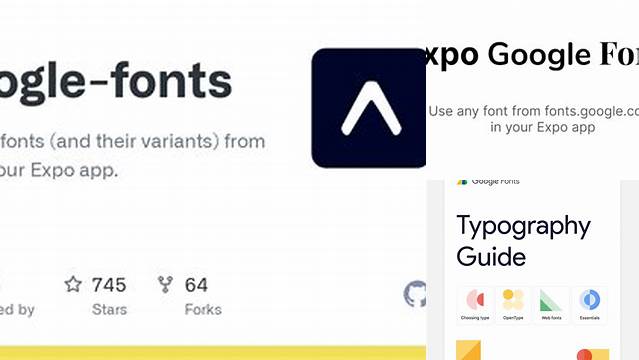
Expo Google Fonts: Your Guide To Typography
Unlocking the Power of Typography with Expo Google Fonts
Hey, design wizards and app builders! Ever felt like your mobile app's text is just… meh? Like it's screaming for a personality upgrade but you're not sure where to start? Well, let me tell you, the secret sauce often lies in typography. And when it comes to jazzing up your Expo projects with gorgeous, readable, and diverse fonts, Expo Google Fonts is your new best friend. We're talking about tapping into the massive library of Google Fonts directly within your Expo application, making your UI pop and your users smile. It’s not just about making things look pretty, guys; it’s about enhancing user experience, improving readability, and establishing a strong brand identity. Imagine downloading a font and having it seamlessly integrated into your project with just a few lines of code. That’s the magic we’re diving into today. Forget complicated font management or worrying about licensing issues; Expo and Google Fonts have teamed up to make this process incredibly smooth. We'll explore how to leverage this integration to its fullest, turning your app's text from a mere carrier of information into an expressive element of your design.
The Benefits of Using Google Fonts in Expo Apps
Let's talk why you should be super stoked about using Google Fonts in your Expo apps, guys. It’s more than just a visual upgrade; it’s a strategic move that impacts your app in several significant ways. First off, access to an enormous library. Google Fonts boasts thousands of free, high-quality, open-source fonts. This means you have an unparalleled selection to match your brand's personality, convey a specific mood, or simply ensure maximum readability. Whether you're going for a playful, minimalist, or professional vibe, there's a font out there for you. Secondly, improved user experience and accessibility. The right font can make your app a joy to use. Good typography ensures that text is clear and easy to read, reducing user fatigue and making information digestible. This is crucial for engagement and retention. Plus, many Google Fonts are designed with accessibility in mind, offering clear letterforms and good spacing that benefit users with visual impairments. Consistency across platforms is another huge win. By loading fonts directly into your Expo app, you ensure that your app looks identical on both iOS and Android devices, and even on the web if you're using Expo for web. No more worrying about platform-specific font rendering or availability. And let's not forget cost-effectiveness and licensing. Google Fonts are free to use, even for commercial projects. This is a massive advantage, especially for indie developers or startups, as it eliminates the need for expensive font licenses. You get professional-grade typography without breaking the bank. Finally, brand identity and memorability. Fonts play a massive role in how your brand is perceived. Using distinctive, well-chosen fonts helps create a unique and memorable brand identity for your app, making it stand out in a crowded marketplace. So, yeah, the benefits are pretty compelling, right?
Integrating Specific Font Families: A Practical Guide
Now that we’re all hyped about the possibilities, let’s get practical with integrating specific font families using Expo Google Fonts. It’s all about picking the right font and then telling Expo how to load it. Let's say you've fallen in love with 'Roboto' – a super versatile and widely loved font. You’ll need to head over to Google Fonts (fonts.google.com) and find 'Roboto'. On the font's page, you'll see various styles and weights (Regular, Medium, Bold, Italic, etc.). You need to select the ones you want to use. For instance, let's say you want 'Roboto Regular' and 'Roboto Medium'. You'll then click the 'Get font' button and select 'Download family' or individual styles. For integration, it’s usually best to download the specific weights you need. Once downloaded, you'll typically find .ttf or .woff files. You'll need to place these font files into your Expo project directory. A common practice is to create a assets/fonts folder and put them there. So, if you downloaded Roboto-Regular.ttf and Roboto-Medium.ttf, they’d live in your-project/assets/fonts/. Now, back in your code, you'll use expo-font's loadAsync function. You can import it like import * as Font from 'expo-font'; and then in your App.js or a relevant component's useEffect hook: const loadFonts = async () => { await Font.loadAsync({ 'Roboto': require('./assets/fonts/Roboto-Regular.ttf'), 'Roboto_medium': require('./assets/fonts/Roboto-Medium.ttf'), }); }; loadFonts();. Notice how we used require() for local files. This tells Expo to bundle these fonts with your app. The first argument in the object ('Roboto', 'Roboto_medium') is the name you'll use in your stylesheets, like fontFamily: 'Roboto'. The second argument is the path to the font file. If you need multiple weights for the same font family (like 'Roboto'), it's common practice to name them clearly, perhaps 'Roboto-Regular' and 'Roboto-Medium', or even just 'Roboto' for the regular weight and use platform-specific naming conventions if needed, though explicitly naming is often clearer. This method works seamlessly for any font you choose from Google Fonts, giving you full control over your app's typographic aesthetic.
Handling Different Font Weights and Styles
Guys, let's talk about making your text really sing by mastering different font weights and styles with Expo Google Fonts. It’s not just about picking a font; it’s about using its full potential to create hierarchy, emphasis, and visual appeal. Think about it: bold text grabs attention, italic text adds emphasis or a subtle stylistic flair, and different weights (like light, regular, medium, bold, black) allow you to create a clear visual structure within your app's content. Expo's expo-font library is designed to handle this beautifully. When you download fonts from Google Fonts, they usually come in various weights and styles. For example, you might download 'Lato' in 'Lato-Regular', 'Lato-Bold', and 'Lato-Italic'. To use these in your Expo app, you load each one individually using Font.loadAsync. You can give each loaded font a distinct name that reflects its weight and style, making it super easy to reference later. So, in your loadAsync call, it might look like this: Font.loadAsync({ 'Lato-Regular': require('./assets/fonts/Lato-Regular.ttf'), 'Lato-Bold': require('./assets/fonts/Lato-Bold.ttf'), 'Lato-Italic': require('./assets/fonts/Lato-Italic.ttf'), });. Now, in your React Native components, you can apply these specific styles directly: <Text style={{ fontFamily: 'Lato-Bold', fontSize: 20 }}>This is important!</Text> or <Text style={{ fontFamily: 'Lato-Italic', fontSize: 16 }}>A little emphasis here.</Text>. If you want to use a font family name consistently and let the system handle weights (which is less common and sometimes less reliable in React Native compared to web), you could load the regular weight as 'MyFont' and then try to apply fontWeight: 'bold' or fontStyle: 'italic' to your Text components. However, for maximum control and predictable results across devices, loading each weight/style combination with a distinct name, as shown above, is the recommended approach. This allows you to precisely control the appearance of every piece of text, ensuring your design is implemented exactly as intended and providing a professional, polished look to your Expo application. It’s all about leveraging the full typographic toolkit.
Best Practices for Font Loading in Expo
Alright, my fellow coders, let's talk about making sure your app's fonts load smoothly and efficiently. When you're dealing with Expo Google Fonts, there are definitely some best practices to keep in mind to avoid sluggish loading times or unexpected issues. First off, only load what you need. Don't go downloading every single weight and style of every font you might possibly use. Each font file adds to your app's bundle size, which can impact download times and memory usage. So, carefully select the specific weights (like Regular, Bold) and styles (like Italic) that are essential for your design. Secondly, load fonts early. The best place to load your custom fonts is usually at the very beginning of your app's lifecycle, typically within the useEffect hook in your main App.js file or a root component. This ensures that the fonts are available before your UI tries to render any text that uses them. If you try to use a font before it's loaded, you might see default system fonts appear briefly, which can be jarring. Use a loading indicator or splash screen while fonts are being fetched and loaded to provide a better user experience. Thirdly, organize your font files. Create a dedicated folder, like assets/fonts/, to keep all your font files (TTF, WOFF, etc.) neatly organized. This makes your project cleaner and easier to manage. When using Font.loadAsync, make sure the require() paths are correct relative to your code. Fourth, consider font formats. Expo generally supports .ttf and .otf files well. While .woff and .woff2 are common on the web, they might require additional handling or might not be as universally supported within native mobile apps. Stick to .ttf or .otf for best compatibility. Finally, handle loading errors gracefully. Although rare, font loading can fail. Wrap your Font.loadAsync calls in a try...catch block to handle potential errors. You might display an error message to the user or fall back to system fonts if loading fails. By following these tips, you'll ensure your Expo app uses custom fonts reliably and efficiently, providing a seamless and professional look and feel for your users.
Advanced Techniques: Dynamic Font Loading
Alright, for you power users and those looking to push the boundaries, let's dive into advanced techniques for dynamic font loading with Expo Google Fonts. While the standard Font.loadAsync is fantastic for most use cases, sometimes you might need more flexibility. One scenario is loading fonts conditionally based on user preferences or app state. For instance, you might want to offer users a choice between a few different font themes. In such cases, you wouldn't want to load all possible fonts upfront, as it bloats the app. Instead, you can implement a system where fonts are downloaded and loaded only when the user selects them. This involves using Font.loadAsync within specific user-triggered events. You could maintain a state variable that holds the currently active font family. When the user selects a new font, you'd call Font.loadAsync with the appropriate font URI (you might need to fetch this URI dynamically too, perhaps from an API or a configuration file) and then update the state. The challenge here is managing the loading process and potentially showing loading indicators to the user during this dynamic selection. Another advanced technique involves on-demand font fetching for web applications built with Expo. While Expo primarily targets mobile, its web support is growing. On the web, instead of bundling all fonts, you might choose to load them asynchronously from Google Fonts' CDN only when needed, similar to how web applications typically handle Google Fonts. This significantly reduces the initial web bundle size. You'd use Font.loadAsync with the appropriate URLs. Furthermore, you could explore libraries or custom hooks that abstract this dynamic loading logic, making it reusable across your project. This might involve creating a useFontLoader hook that takes a font name or URI and handles the loading state, caching, and error management for you. Remember, dynamic loading adds complexity, so ensure the benefits (like reduced bundle size or enhanced user customization) outweigh the added development effort. It's about optimizing for specific performance or feature requirements when the standard approach isn't sufficient.
Ensuring Font Readability and Accessibility
Guys, let's get real for a second. It's awesome having a ton of cool fonts available via Expo Google Fonts, but if your users can't actually read your app, what's the point? That's where font readability and accessibility come into play, and it's super important. When choosing fonts, think beyond just aesthetics. Consider the legibility of the characters. Are the 'i' and 'l' easily distinguishable? Is the '0' clearly different from 'O'? Fonts with open letterforms, clear distinctions between similar characters, and good spacing tend to be more readable. Google Fonts offers a vast selection, so you can find fonts specifically praised for their legibility, like Open Sans, Lato, or Roboto. Next up, font size. This is critical for accessibility. Apple and Google recommend minimum font sizes for a reason. Ensure your default font size is large enough to be comfortable on various screen sizes. Typically, 16sp (scalable pixels) is a good starting point for body text. Use relative units or Expo's PixelRatio.getFontScale() to ensure text scales appropriately with the user's device settings. Line height (or leading) is another factor. Text that is too tightly packed is hard to read. Aim for a line height that's about 1.4 to 1.5 times the font size for body text. This creates comfortable breathing room between lines. Contrast is absolutely vital. Ensure there's sufficient contrast between your text color and the background color. Tools like the Web Content Accessibility Guidelines (WCAG) contrast checker can help you verify this. Low contrast can make text invisible to users with visual impairments or in bright lighting conditions. Avoid overly decorative or script fonts for primary text. While they might look cool for headings or branding elements, they are often difficult to read in paragraphs. Reserve them for specific, limited use cases. Finally, remember that users can adjust their device's font size. Your app should respect these settings. By using scalable font units and loading fonts that offer good readability across different sizes and weights, you create an inclusive experience for all your users. It’s about making your app usable and enjoyable for everyone, not just the designer.
The Role of Font Licensing in Expo Projects
Let's get serious for a moment, guys, because when we talk about Expo Google Fonts, we absolutely must touch upon the critical topic of font licensing. It's not just about pretty text; it's about legal compliance and ethical development. The fantastic news is that the vast majority of fonts available on Google Fonts are open source and licensed under the Open Font License (OFL). This license is incredibly permissive, allowing you to freely use, modify, and distribute the fonts. This includes using them in commercial projects, like the mobile apps you're building with Expo, without needing to pay any licensing fees. This is a HUGE advantage, especially for startups, freelancers, or anyone working on a budget. It democratizes access to high-quality typography. However, always double-check the license for any font you choose. While OFL is the standard for Google Fonts, it's good practice to verify. You can usually find license information directly on the Google Fonts website for each font. Look for the